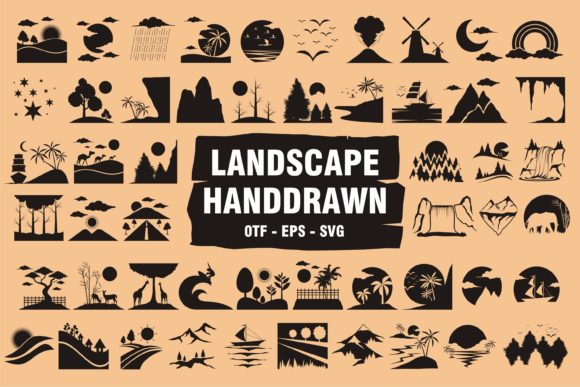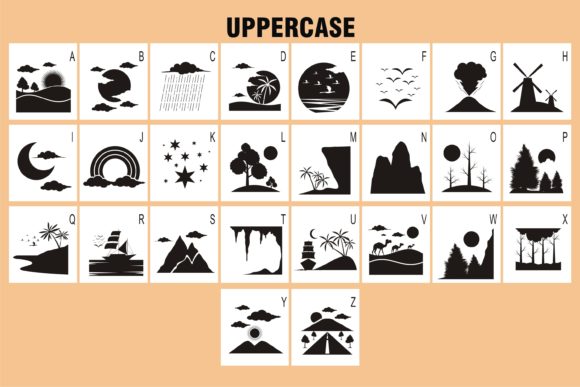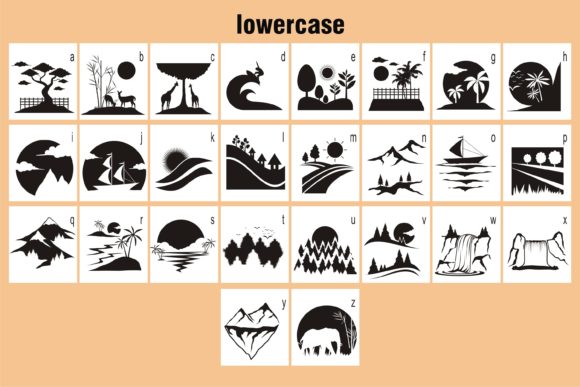
ABOUT LANDSCAPE FONT
“Landscape Handdrawn” is a charming font that embraces the beauty of nature and scenic landscapes. With its simple yet attractive design, this font is perfect for adding a touch of nature to your designs.
Whether you’re creating illustrations, posters, or any other design project with a nature or landscape theme, “Landscape Handdrawn” will effortlessly complement your artwork. Its organic and hand-drawn style adds a sense of authenticity and warmth, bringing your designs to life.